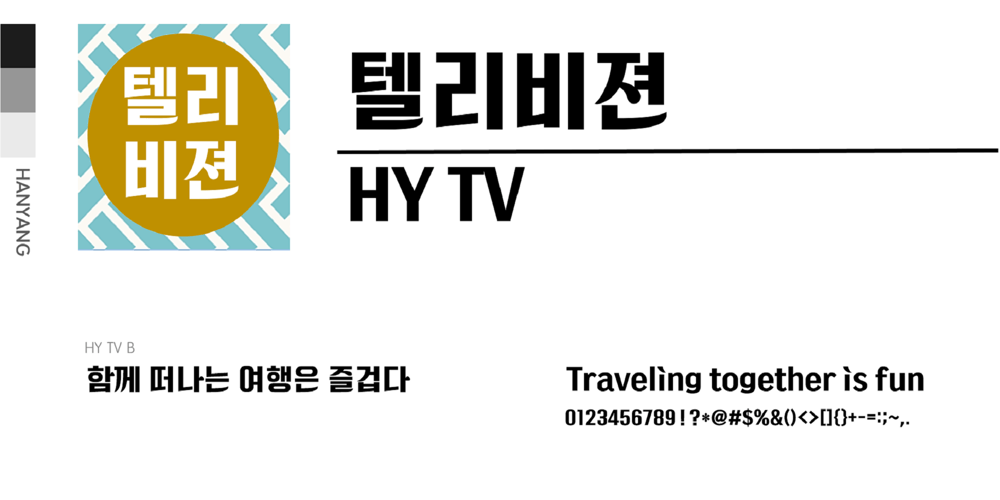
HY TV
HY TV font
HY TV Font Family was designed by font hy and published by HY Font. HY TV contains 1 styles and family package options. It is a retro style font.It can be used for video subtitles and titles.It is a design font with a rustic yet emotional feel.